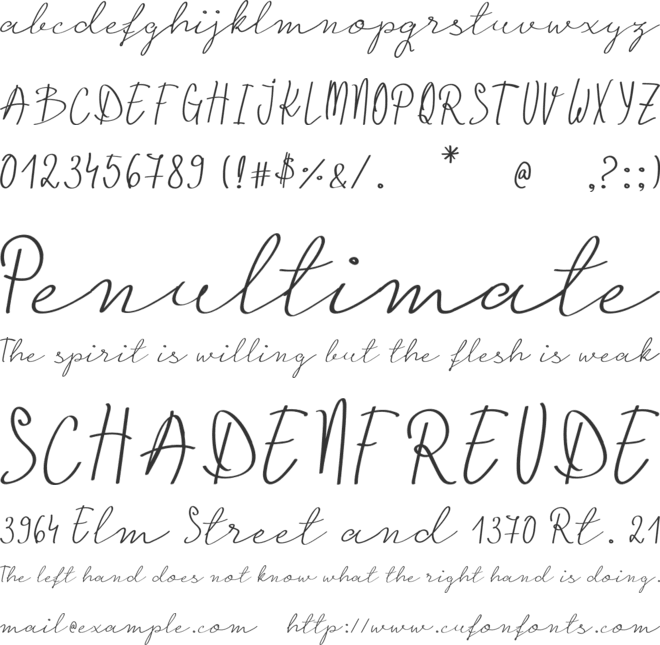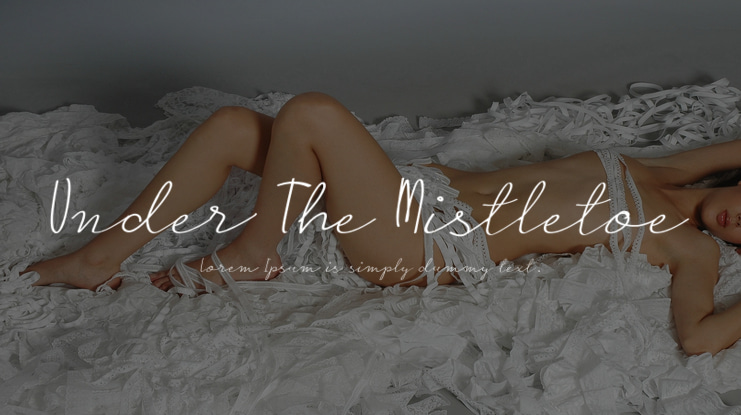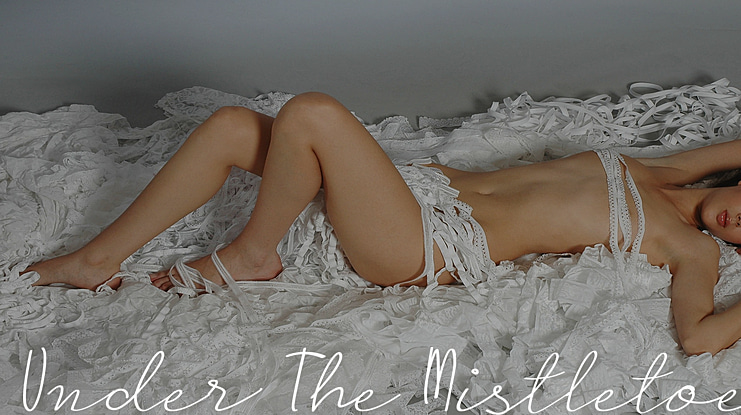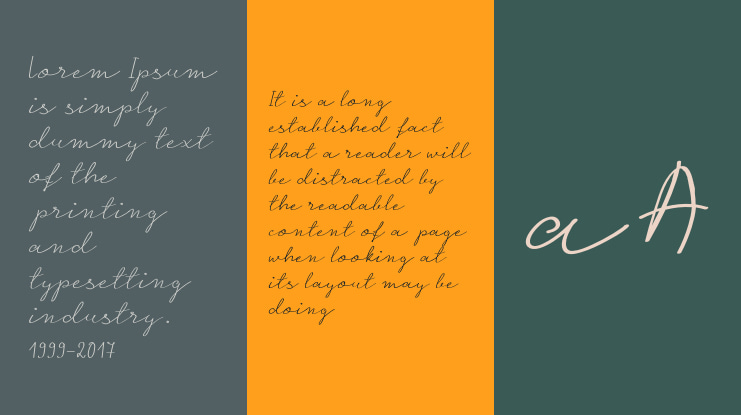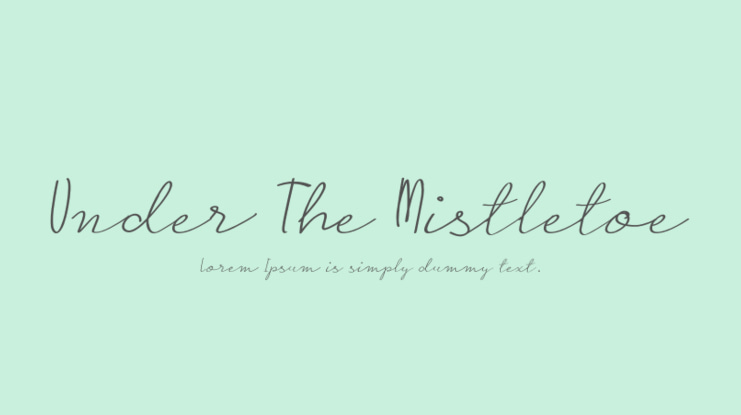
Under The Mistletoe Font
Karina Duca
Under the Mistletoe - a lovely script font that simulates natural handwriting. You can use this font for logos, signatures, handwritten quotes, badges, labels, packaging design, social media headers, greeting cards and a lot more!